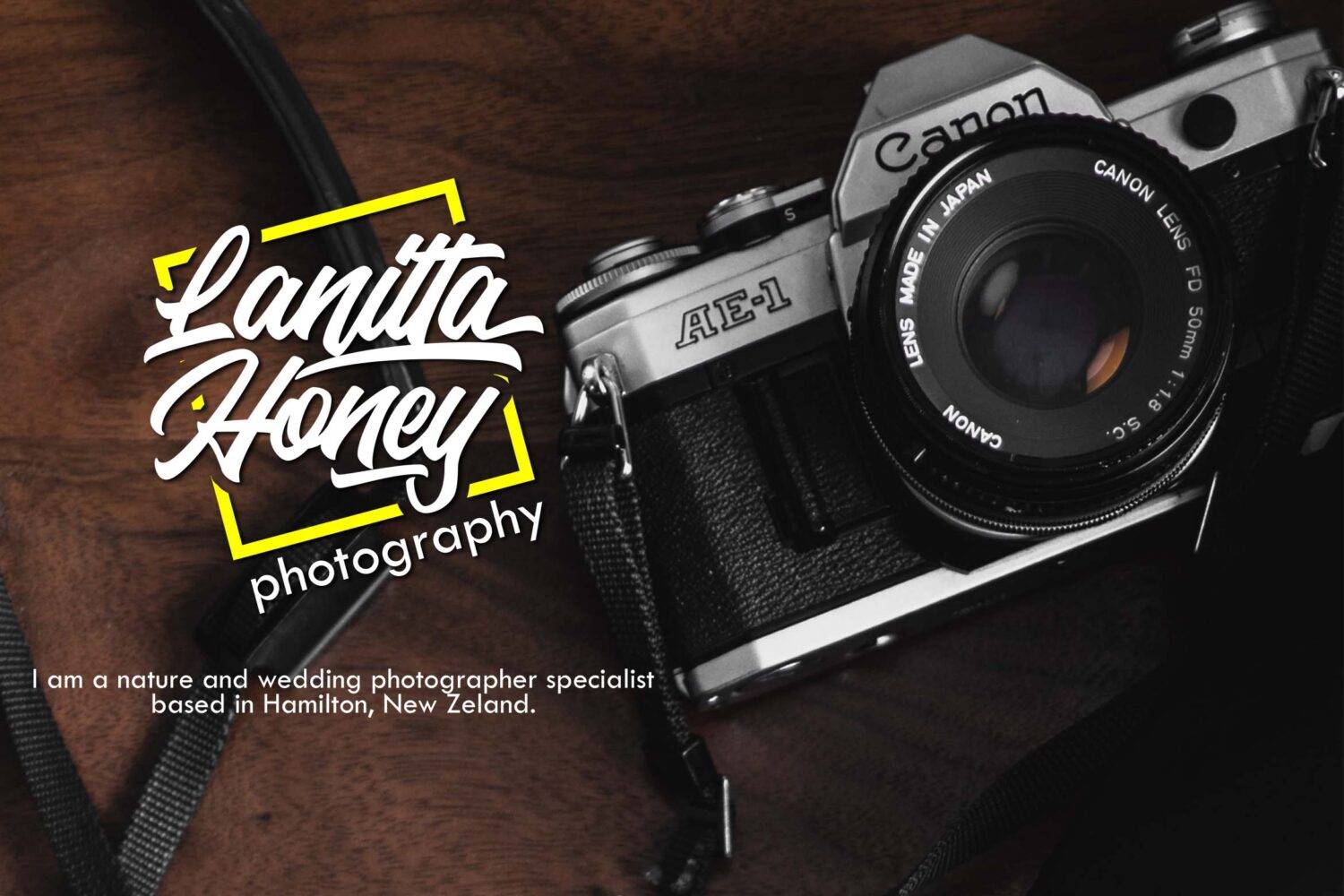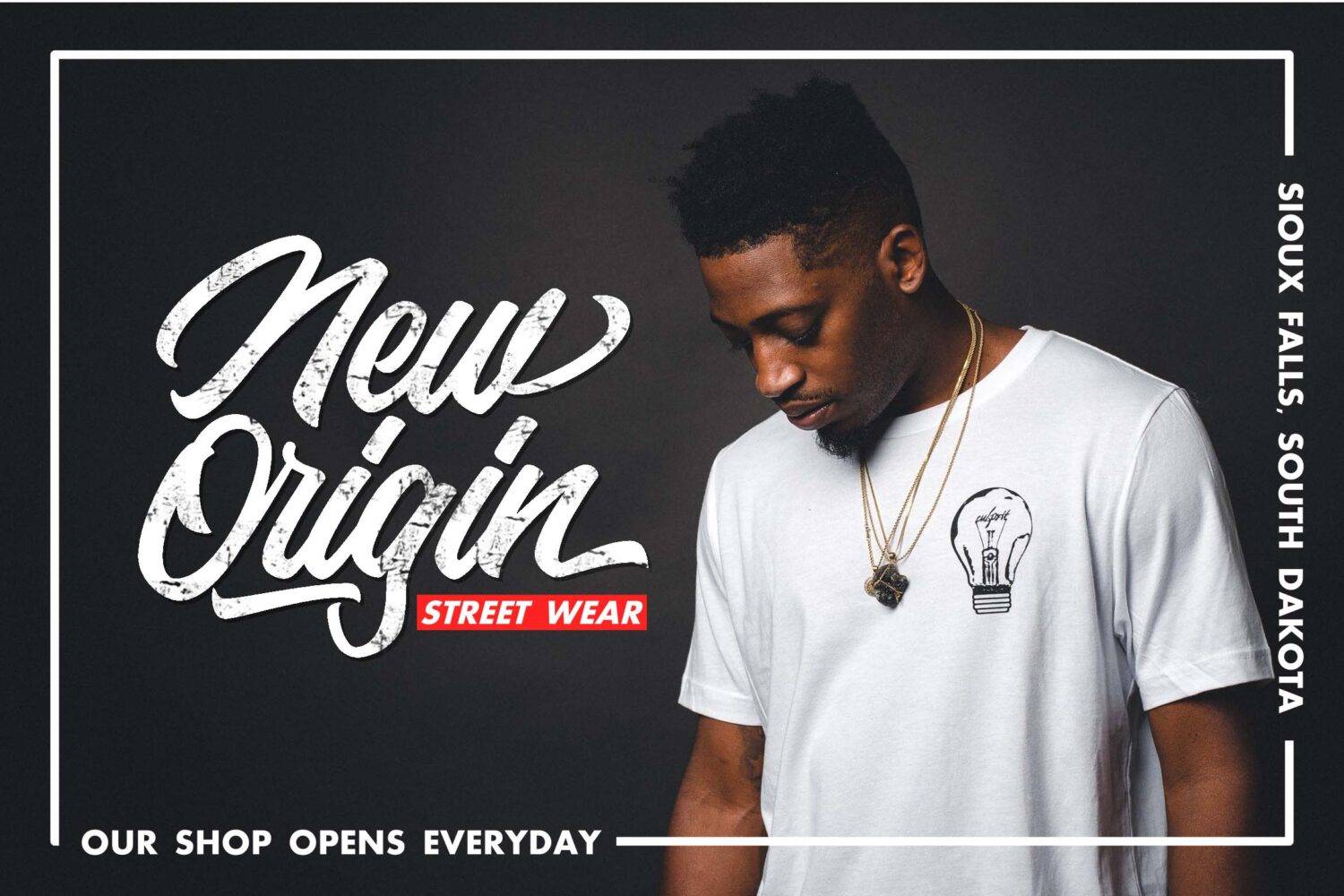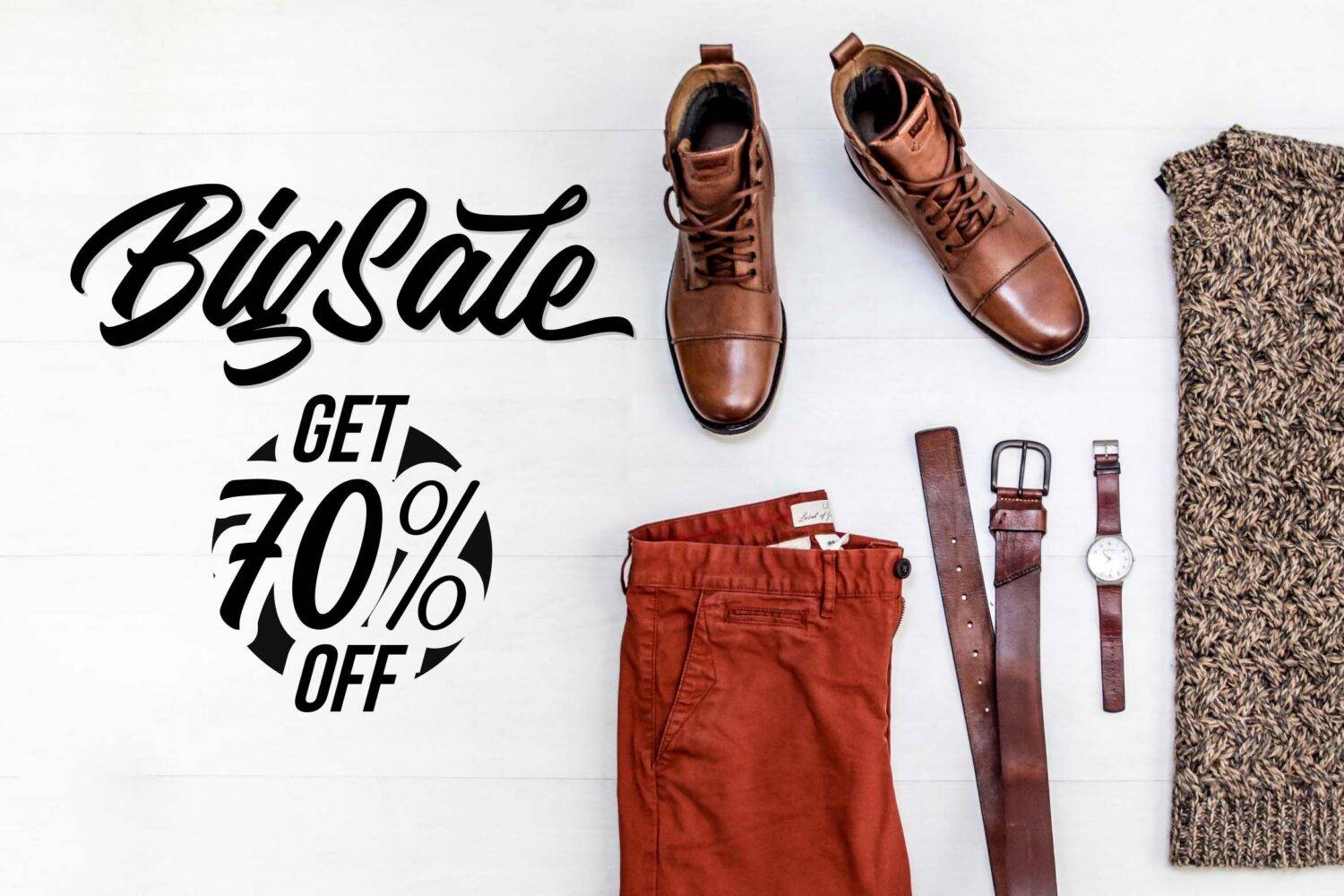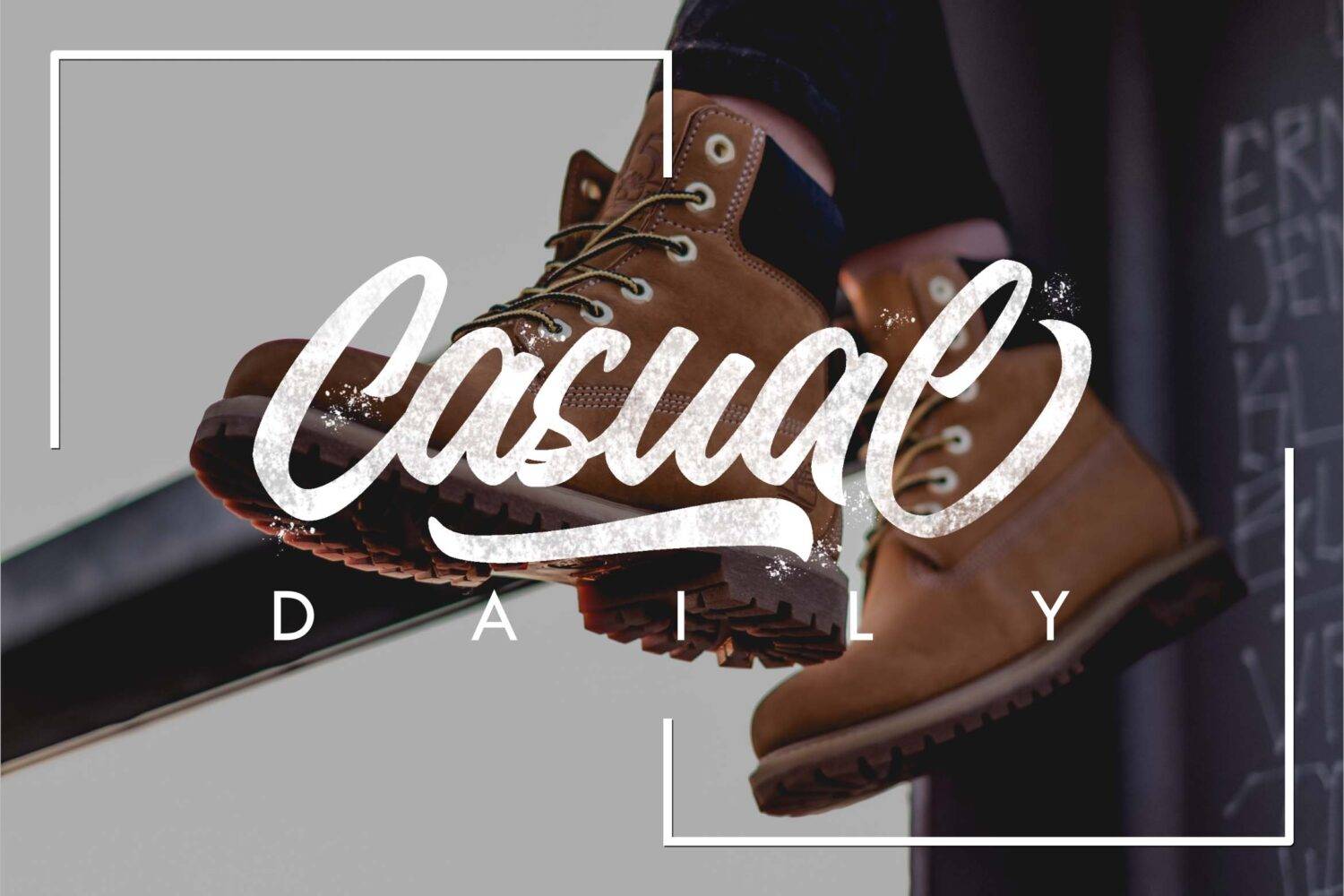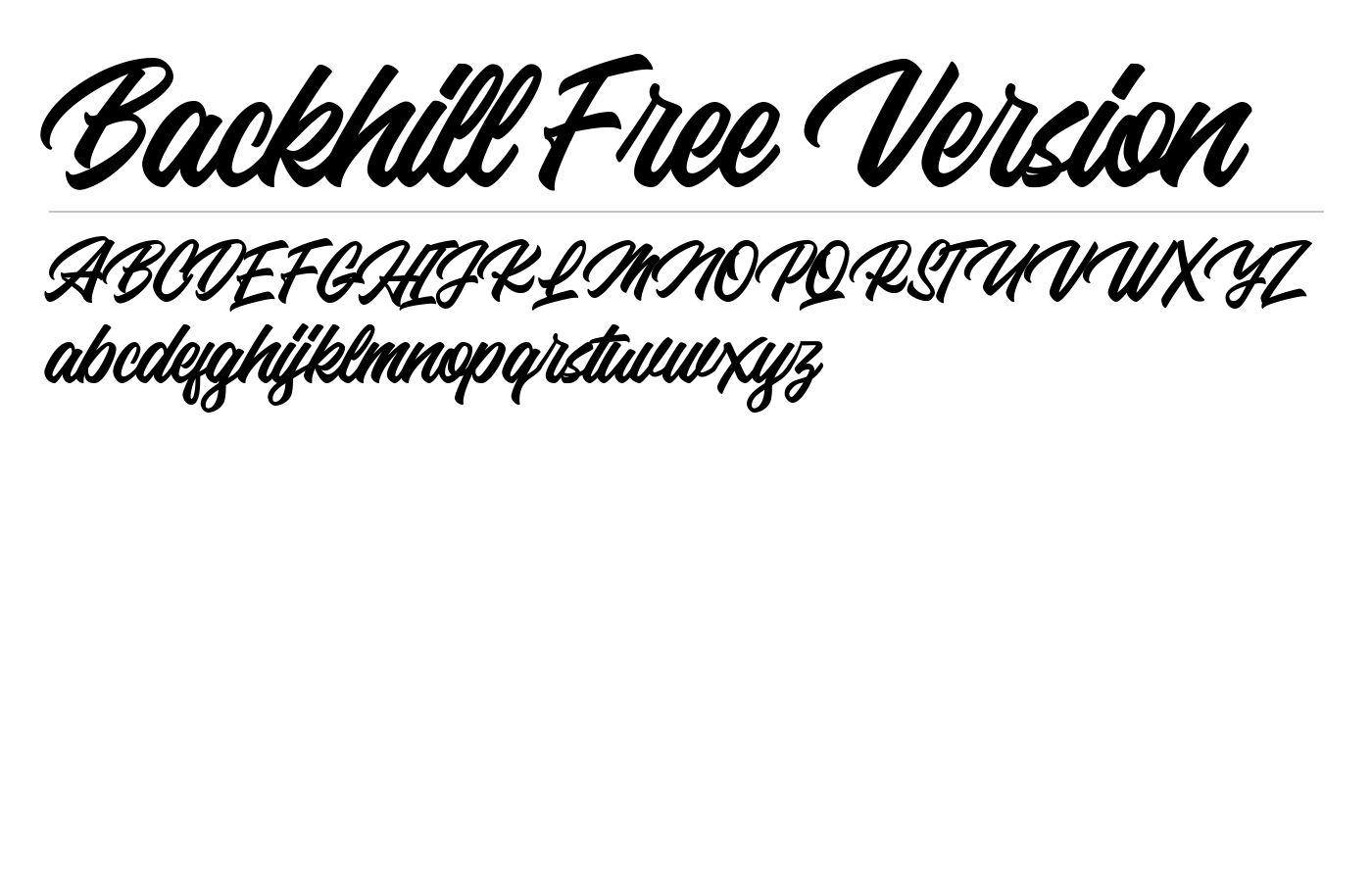
Backhill is a bold, modern script font with smooth, flowing strokes that give it an energetic yet elegant feel. Its slightly condensed forms and clear, connected letter shapes make it perfect for eye-catching headlines, logos, and branding that seek a lively and stylish personality. This font works especially well in fashion, lifestyle, and creative projects where a confident and dynamic script adds charm and sophistication.
Backhill Font
About Backhill Font